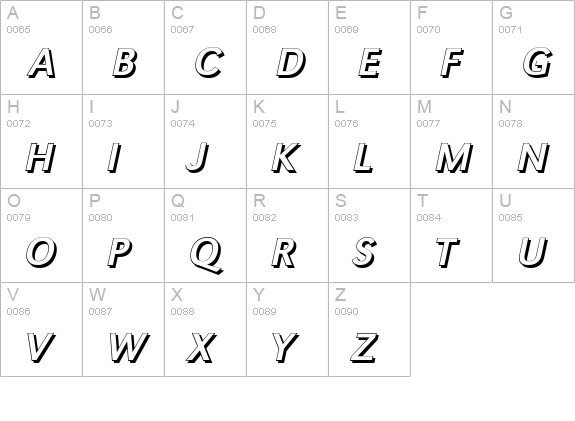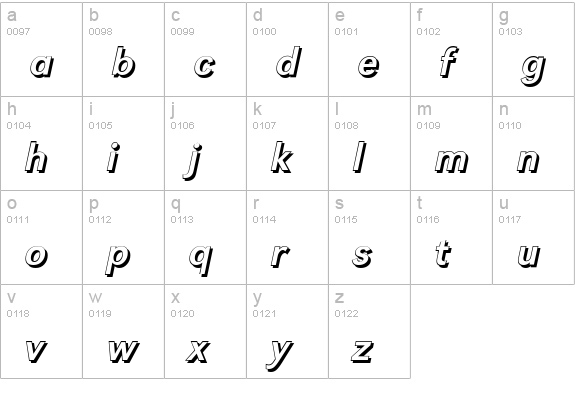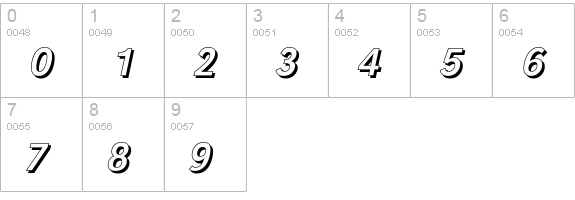
GroteskSh-Italic is a distinctive, italic variant in the GroteskSh typeface family \xE2\x80\x94 well suited to design and typography projects.
GroteskSh-Italic font exudes a unique blend of modernity and elegance, making it a versatile choice for a wide range of design projects. The sleek and stylish italicized characters lend a sense of sophistication to any text, while still maintaining a clean and streamlined appearance. Whether used for branding, editorial design, or digital applications, GroteskSh-Italic adds a touch of refinement to any project. And the best part? GroteskSh-Italic font is available for free download exclusively at FontsMarket.com. This means that you can easily access this high-quality typeface without any cost, making it a valuable addition to your font library. Don't miss out on the opportunity to elevate your designs with the effortlessly chic GroteskSh-Italic font.